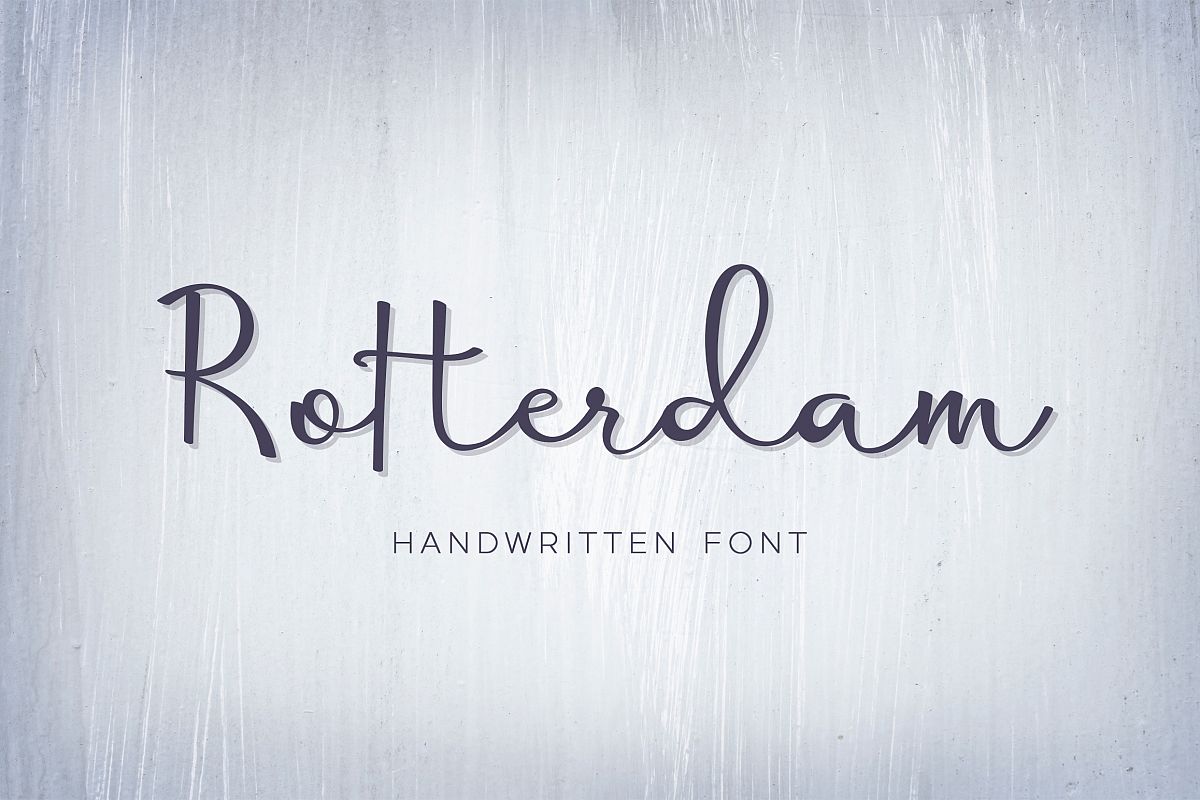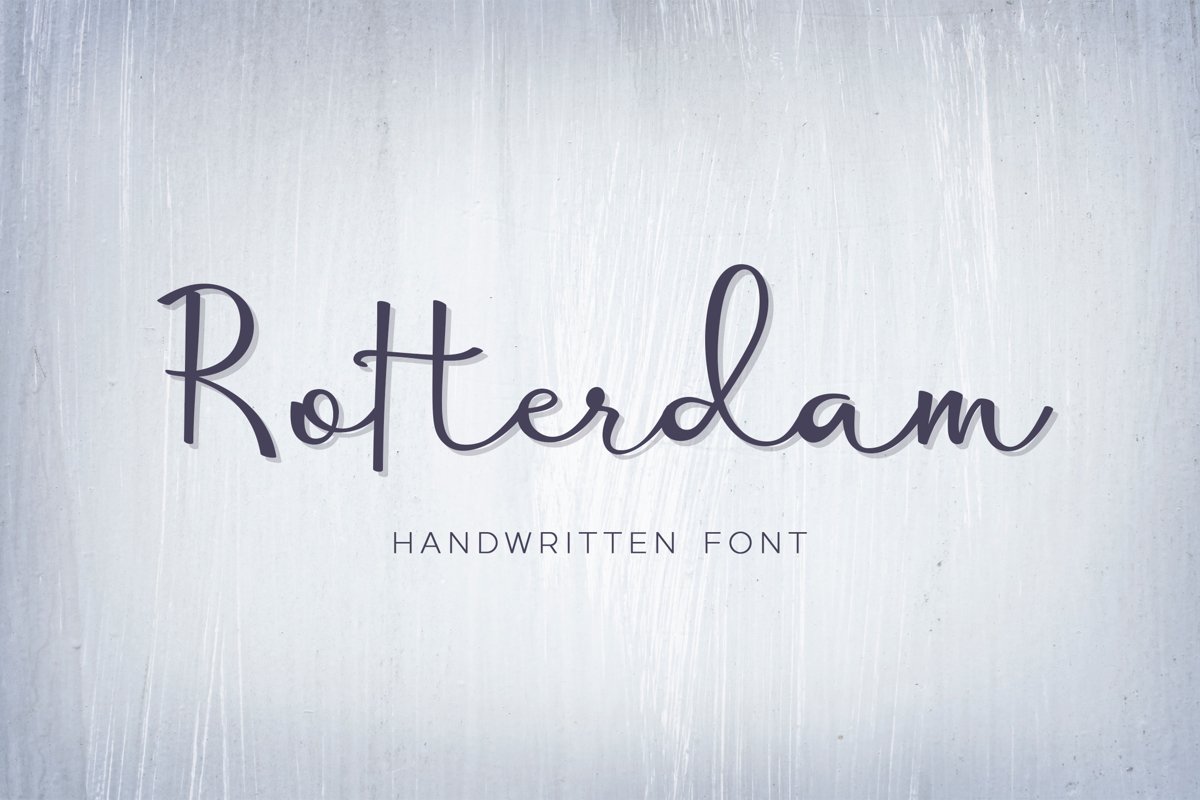
Rotterdam - handwritten calligraphy font
Rotterdam is a casual handdrawn font. Perfect for branding projects, invitations, logo, greeting cards, product packaging, decorative projects, DIY projects and much more!